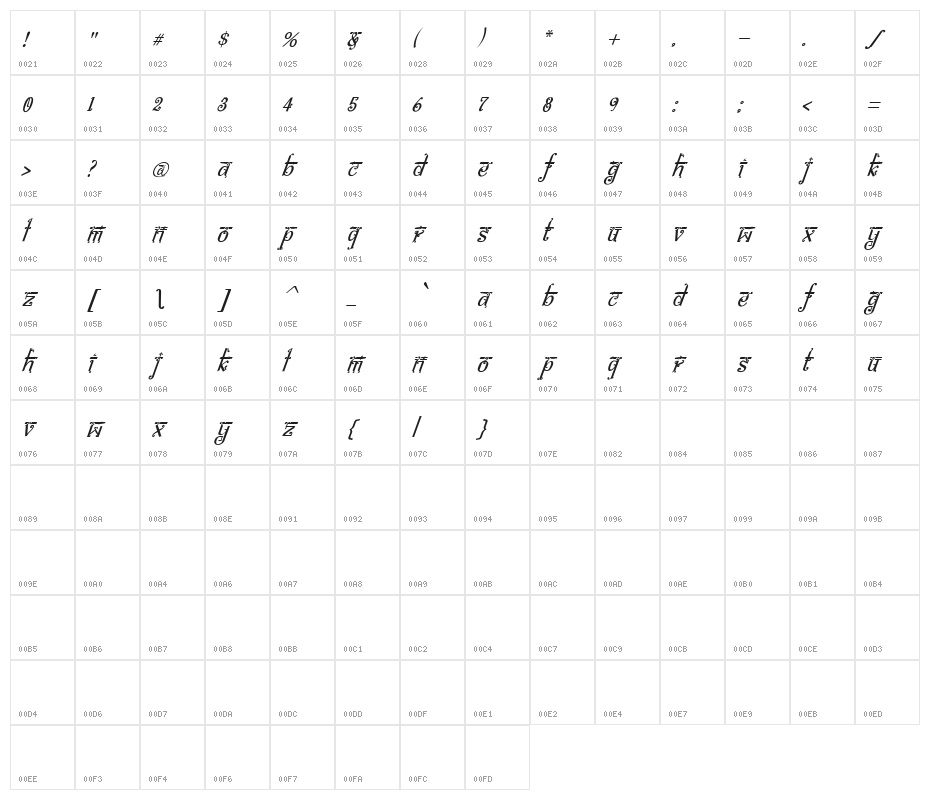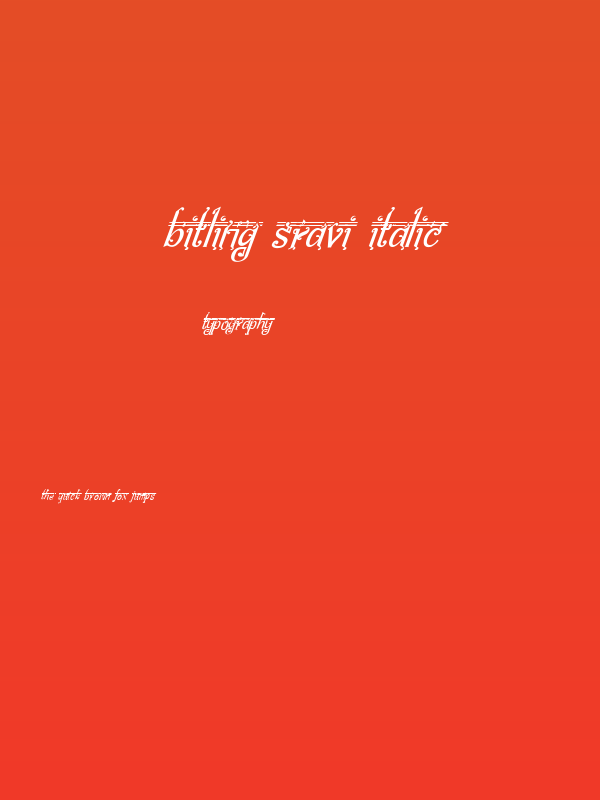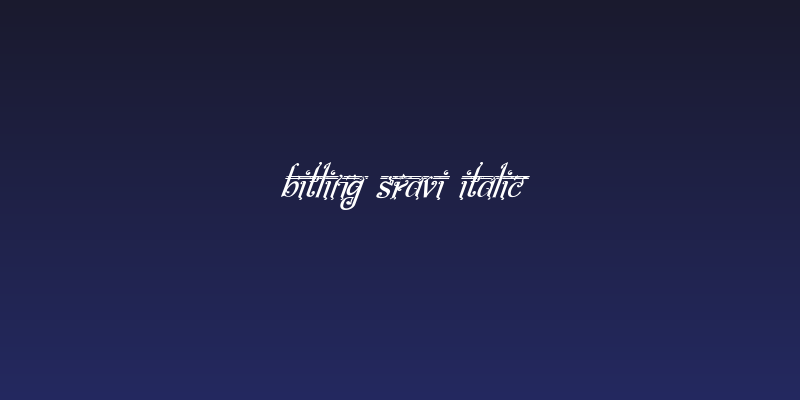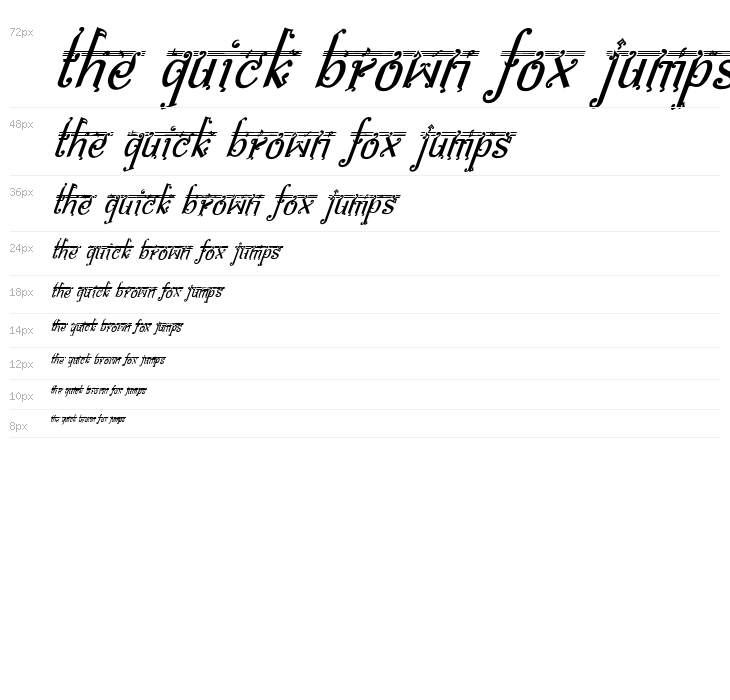
bitling Sravi Italic Font
bitling Sravi Italic Description
This font features a distinctive italic style with elegant, flowing curves and a calligraphic influence. The characters are adorned with subtle serifs and have a slightly slanted orientation, enhancing their dynamic appearance. The uppercase and lowercase letters maintain a consistent style, with smooth transitions and a harmonious balance. The numerals are designed to complement the alphabet, sharing the same graceful curves and serifs. Special characters are thoughtfully integrated, maintaining the overall aesthetic. This font exudes sophistication and is suitable for projects that require a touch of elegance and refinement.
Overall StyleClassic
Use CaseLogos, Headlines, Invitations
Proposed ProjectsIdeal for wedding invitations, luxury branding, elegant packaging, and editorial design.